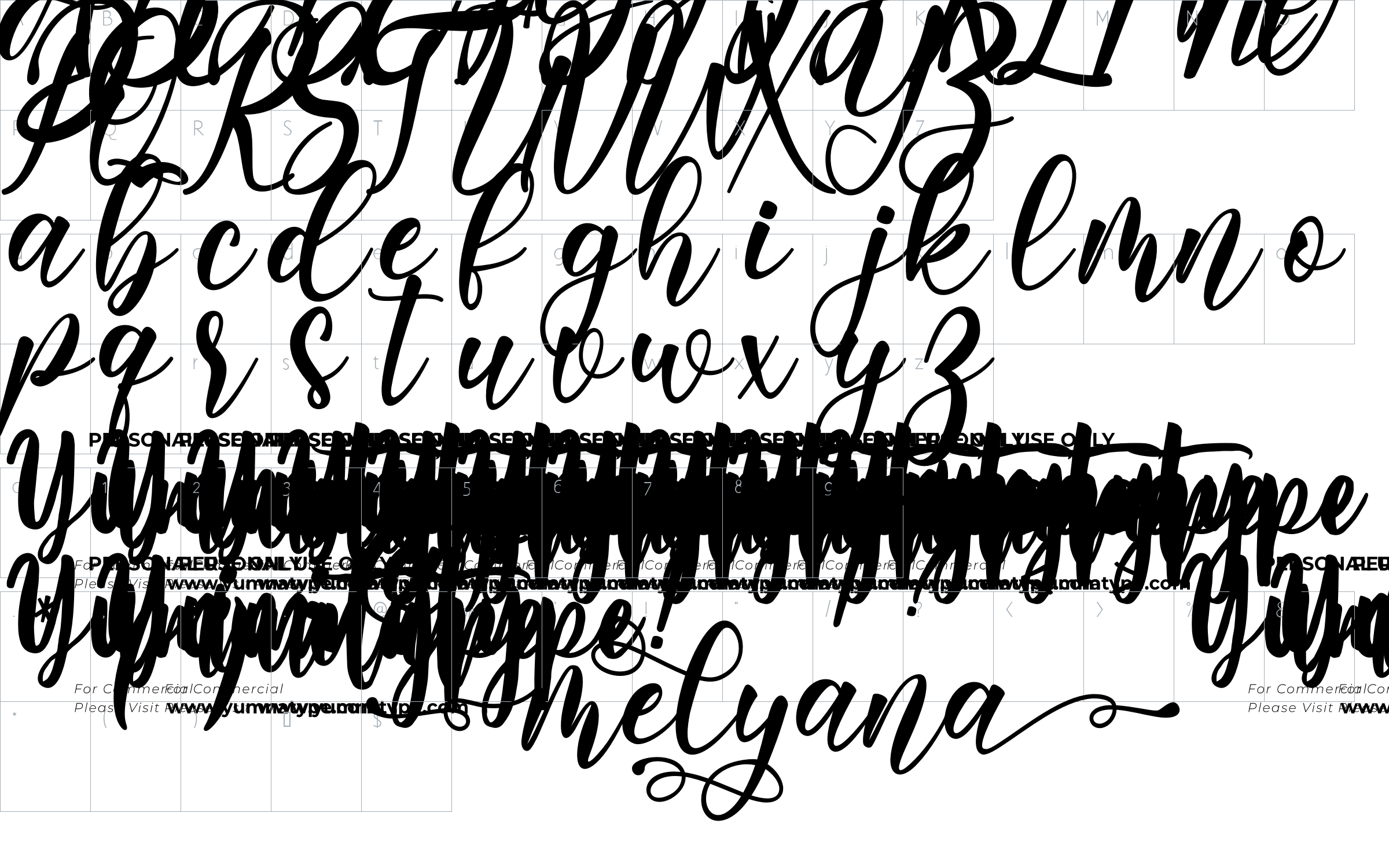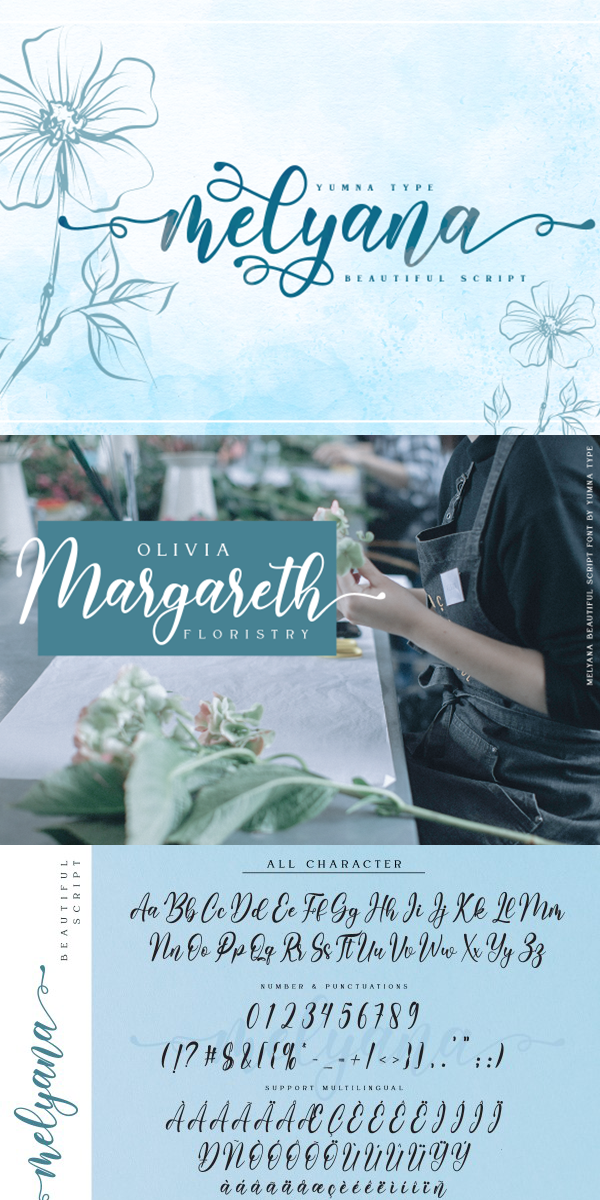
Melyana Font
About Melyana
Say hello to Melyana Script.
Melyana is a beautiful and modern script.
It brings a beautiful and modern typeface that best used for weddings, branding, logotype, and quotes.
Features :
-15 Beautiful Ligatures
-66 Beautiful Alternates + Swashes
-Beginning Swash and Ending Swashes (a-z)